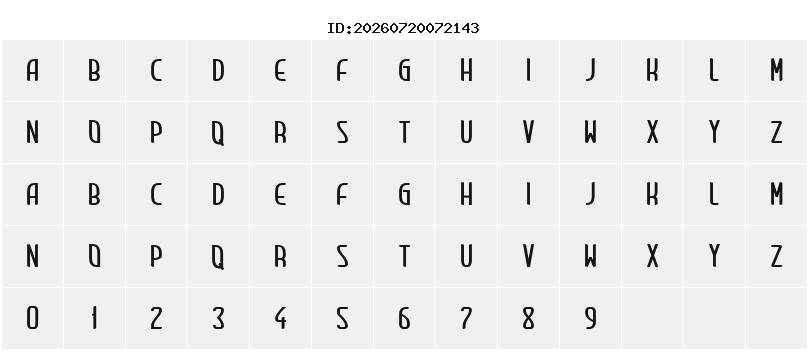
ft19 Preview
• Font Name: ft19
• Font Style: Condensed Regular
• Full Font Name: ft19 Condensed Regular
• Designer: Denis A Serikov
• Manufacturer: FT Content Provider
About ft19.ttf
ft19.ttf is a modern, elegant sans-serif font designed for ultimate readability and visual harmony. Perfect for branding, headlines, web design, and print materials.